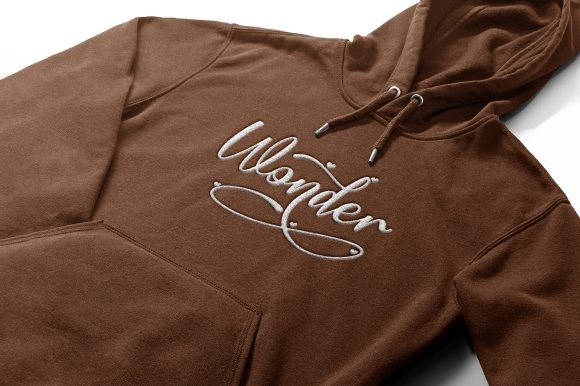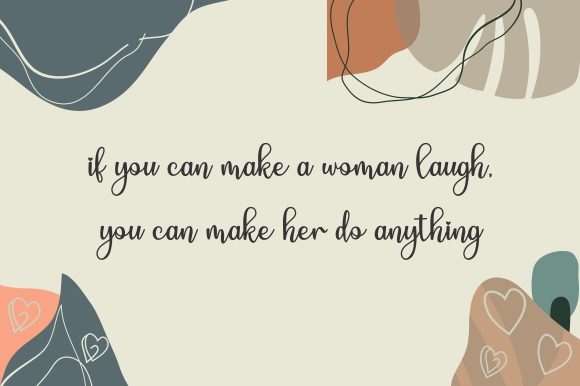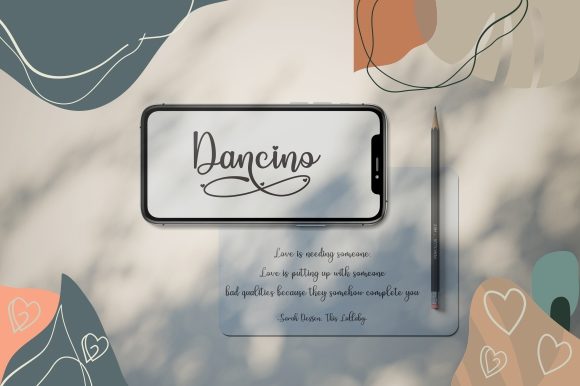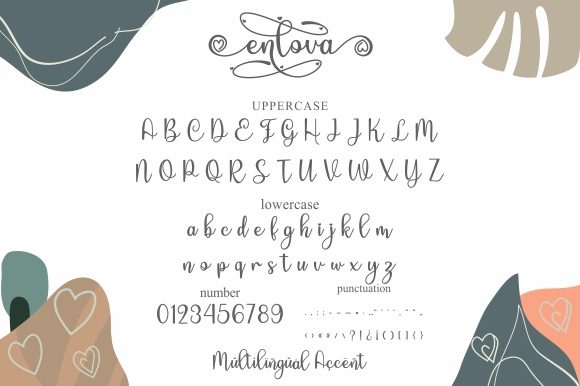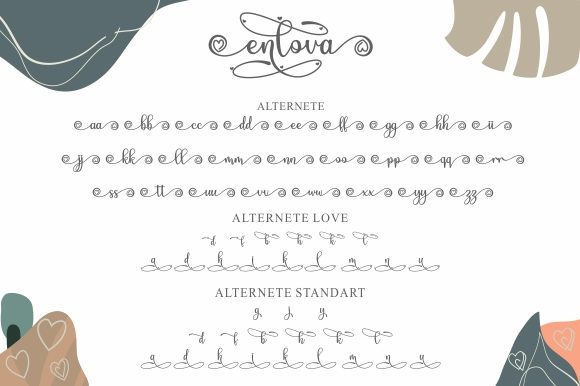
Enlova Font
About Enlova Font
Enlova is an elegant and flowing handwritten font. It is PUA encoded which means you can access all of the glyphs and swashes with ease! It features a varying baseline, smooth lines, gorgeous glyphs and stunning alternates. It maintains its classy calligraphic influences while feeling contemporary and fresh. Fall in love with this font and bring your projects to the highest levels!